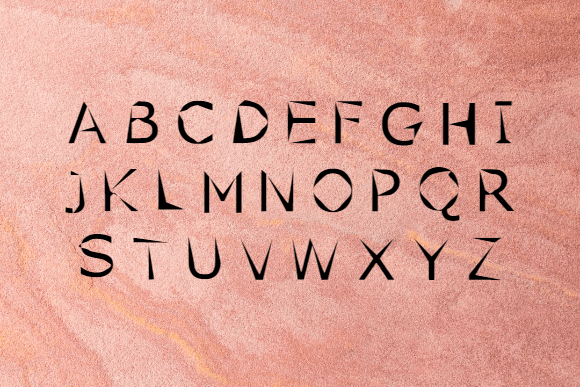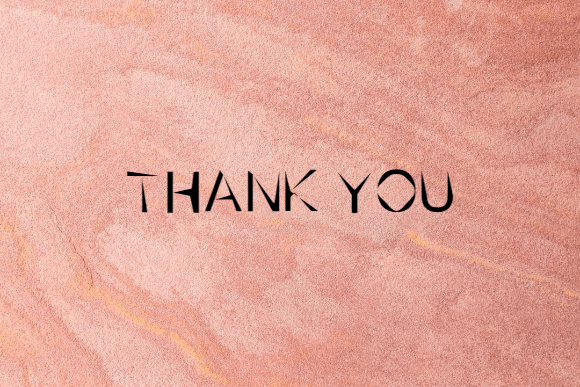
Introduction to Oasis Font
As designers, we’ve all been there – staring at a blank canvas, waiting for inspiration to strike. The perfect project comes along, and you know exactly what you want to create. But, the right font can make all the difference. That’s where the Oasis Font comes in – a modern display font that’s sure to make your creative project stand out.
With its sharp lines and clean curves, the Oasis Font is perfect for creating bold and impactful logos, titles, and headlines. Whether you’re working on a high-profile branding project or a personal design endeavor, this font is a valuable resource that’s sure to elevate your work.
Key Features of Oasis Font
- High-quality design resource perfect for creative projects requiring a unique touch.
- Includes a comprehensive character set, including uppercase and lowercase letters, numbers, and special characters.
- Perfect for designers working on creative projects that require a modern, elegant, and sophisticated font.
Honest Review: Oasis Font
As a designer, I’m always on the lookout for new and exciting design resources to elevate my creative projects. Recently, I stumbled upon the Oasis Font, and I’m excited to share my honest review with you.
What works well about the Oasis Font is its clean and modern design, perfect for creating a sophisticated look in your next project. The font is available for free download, making it an excellent addition to any designer’s toolkit. I also appreciate the transparent background option, which allows for seamless integration into any design.
- ✨ Clean and modern design perfect for sophisticated projects
One limitation I’ve noticed is that the font may not be suitable for all types of projects, particularly those requiring a more playful or whimsical feel. Additionally, the font’s versatility could be improved with more font weights and styles.
Overall, I’m impressed with the Oasis Font, and I think it’s a great addition to any designer’s library. While it may not be perfect, it’s a high-quality design resource that’s definitely worth exploring.
Tips for Getting the Most Out of Oasis Font
Use the Oasis Font in combination with other design elements to create a cohesive and visually appealing design. Experiment with different font sizes, colors, and styles to find the perfect look for your project.
The Oasis Font is perfect for a variety of creative projects, including business cards, brochures, and websites. It’s also great for use in social media graphics, presentations, and other visual content.